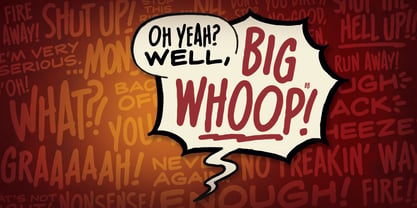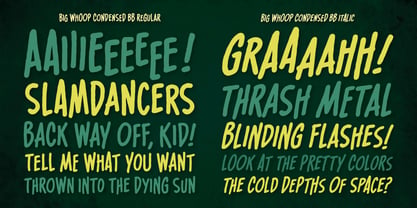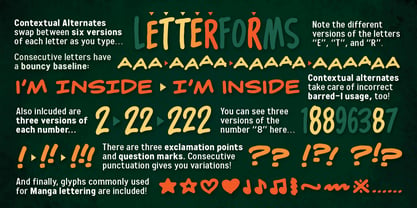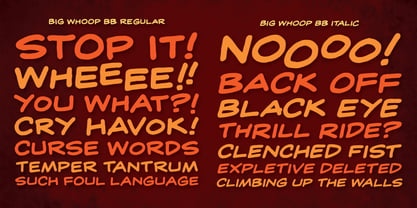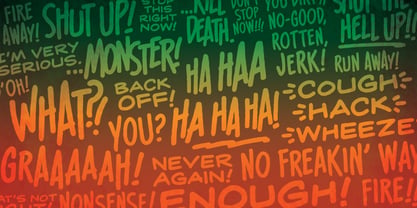
Big Whoop BB
by Blambot
The Big Whoop BB Font Family was designed by Nate Piekos and published by Blambot. Big Whoop BB contains 4 styles and family package options. More about this family
Big Whoop BB is a comic book dialogue font designed for those times when a character is REALLY losing their cool and a standard bold italic font just won't convey their rage or confusion. Designed by award-winning comic book letterer, Nate Piekos of Blambot, Big Whoop BB was created to emulate a B-nib ink pen. These fonts include some cool special features like: six versions of the each letter that swap around as you type, three versions of each number and punctuation, barred-I correction, manga-specific glyphs, bouncy baselines when you type more than three of the same letter, and a plethora of European accented glyphs. Regular, Italic, Condensed and Condensed Italic are available in the set.
Designers: Nate Piekos
Foundry: Blambot